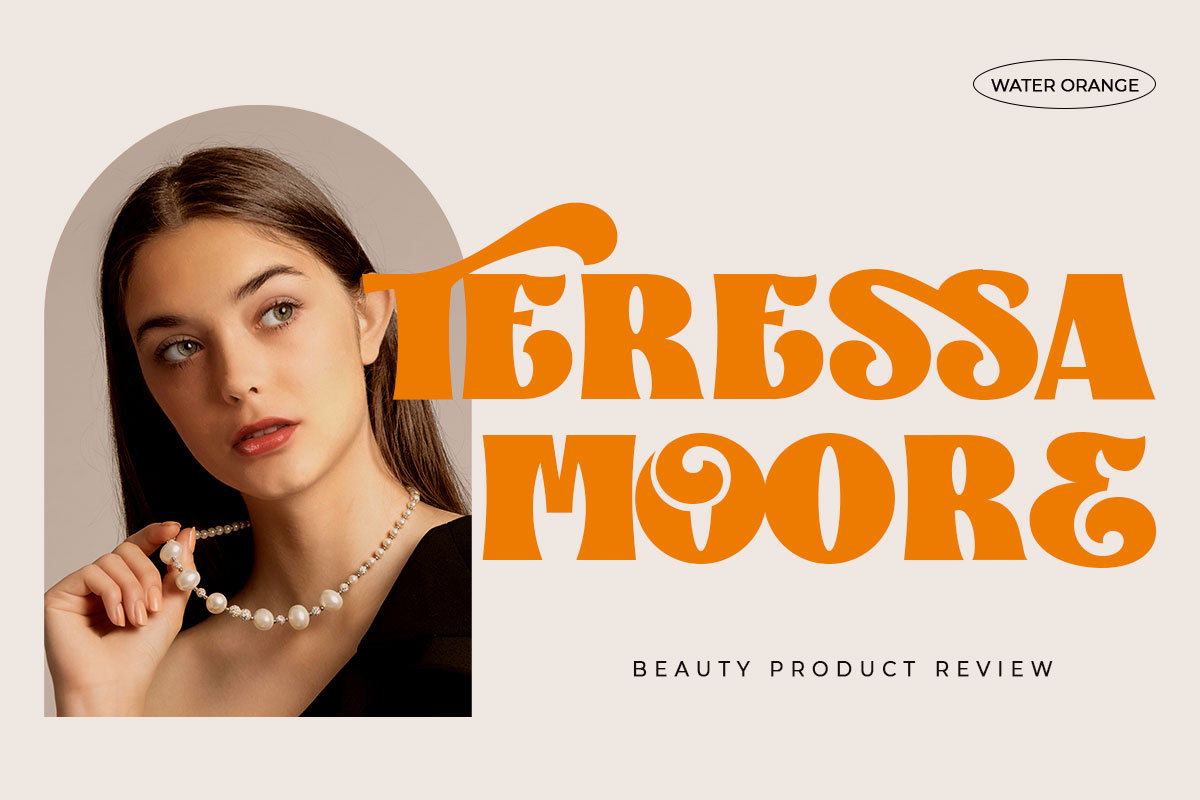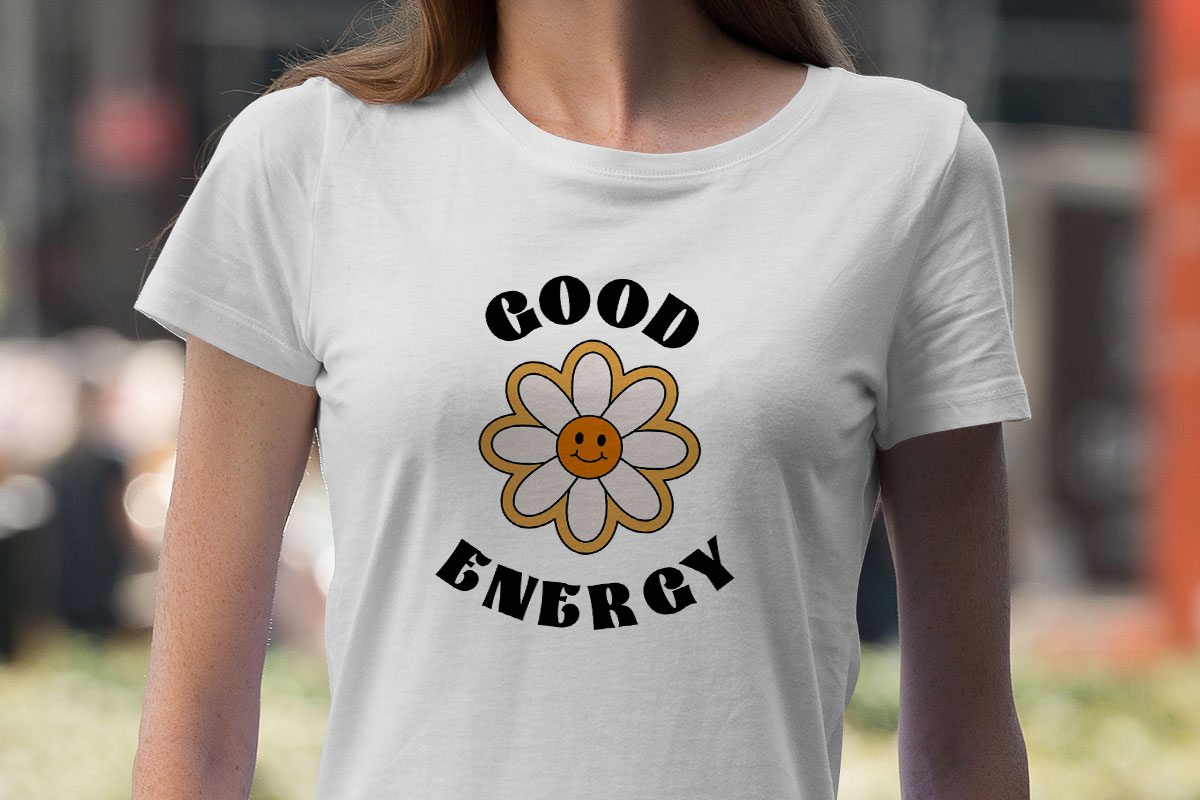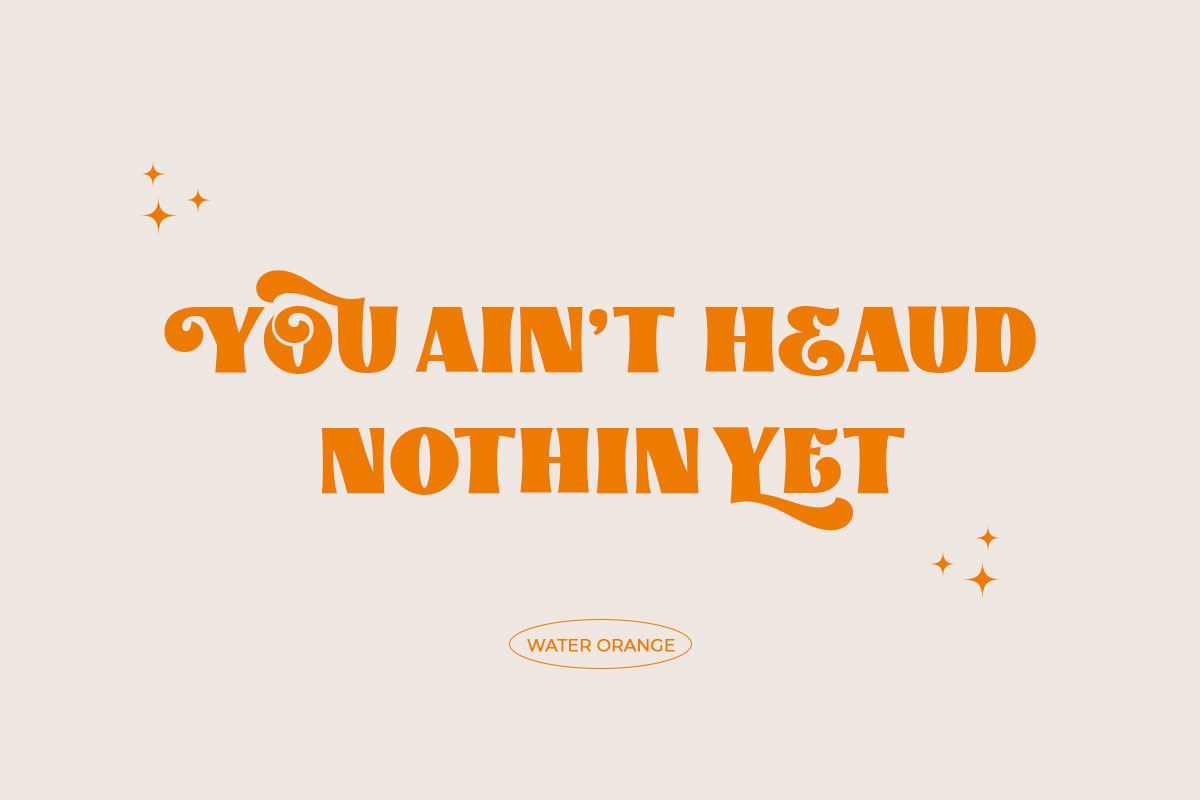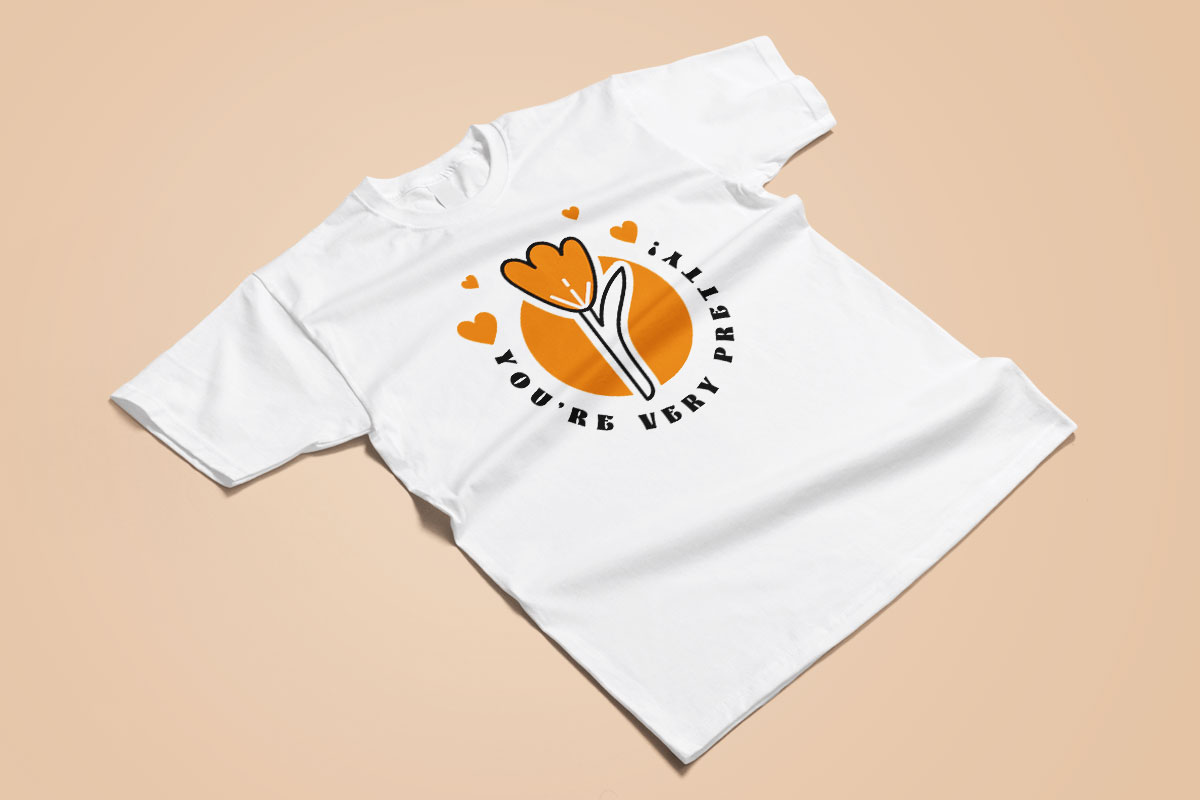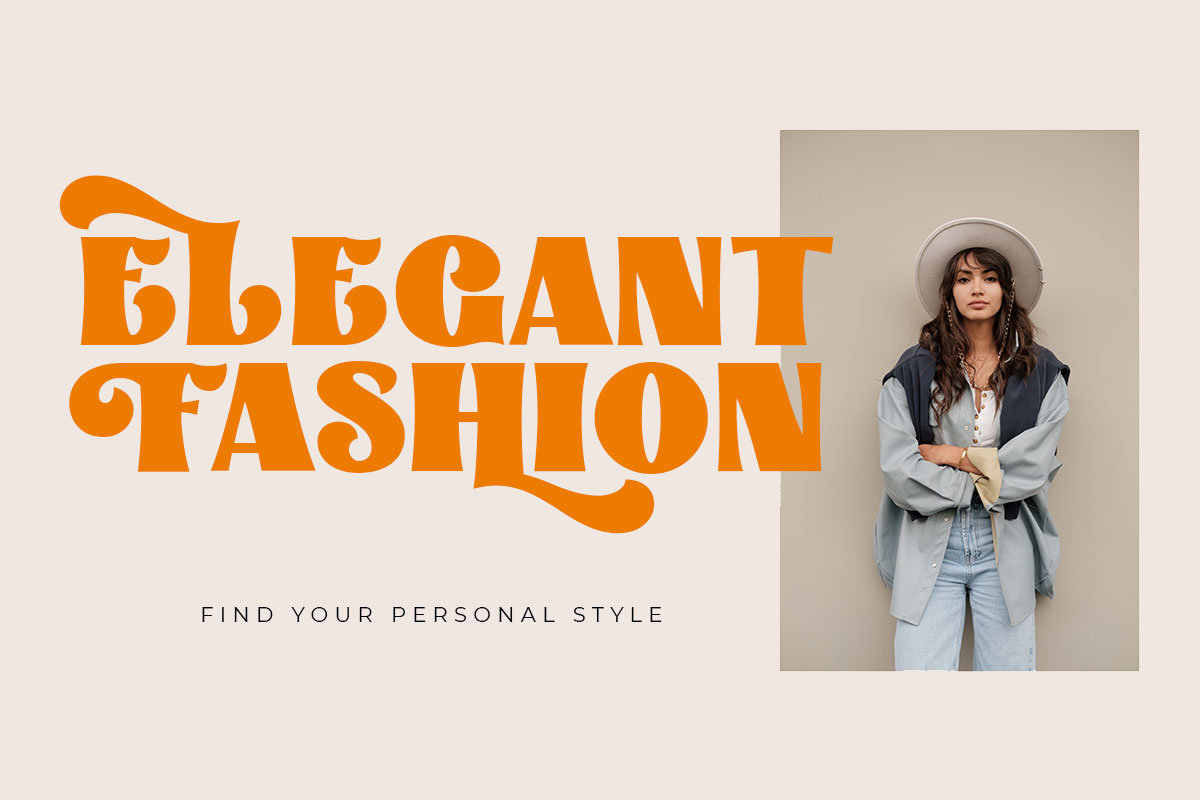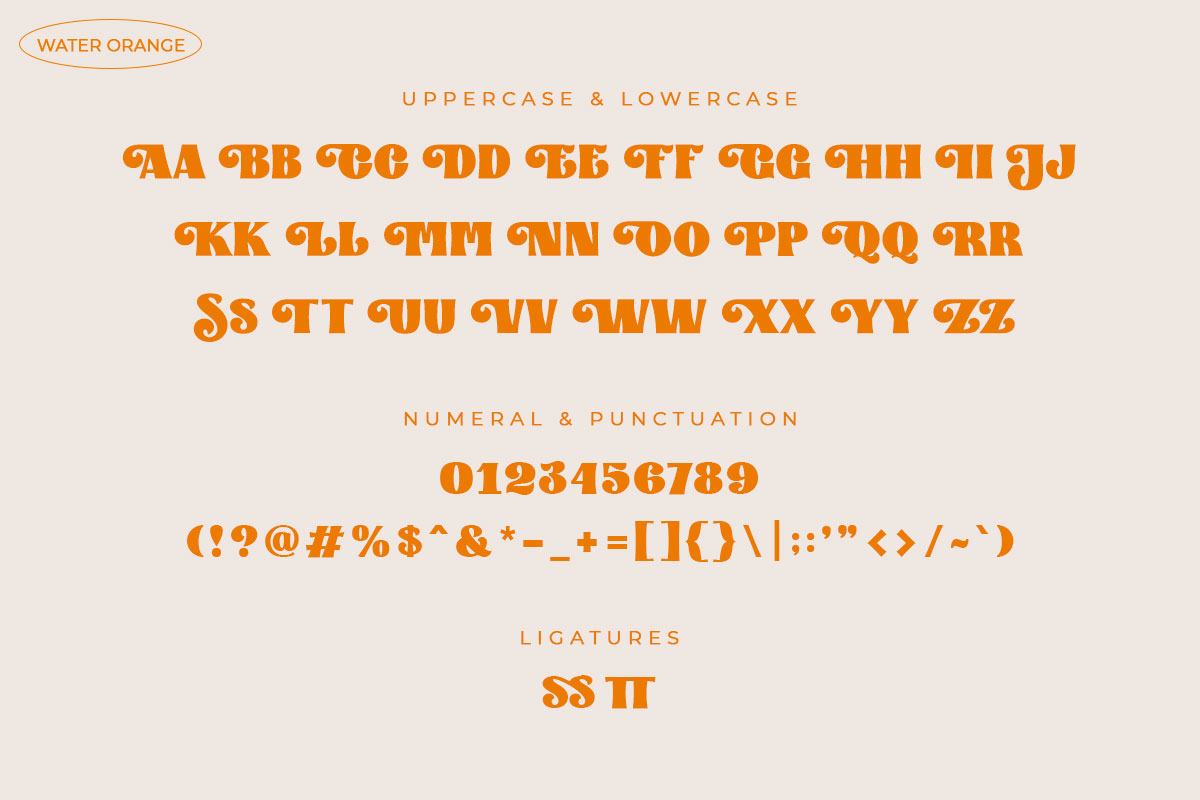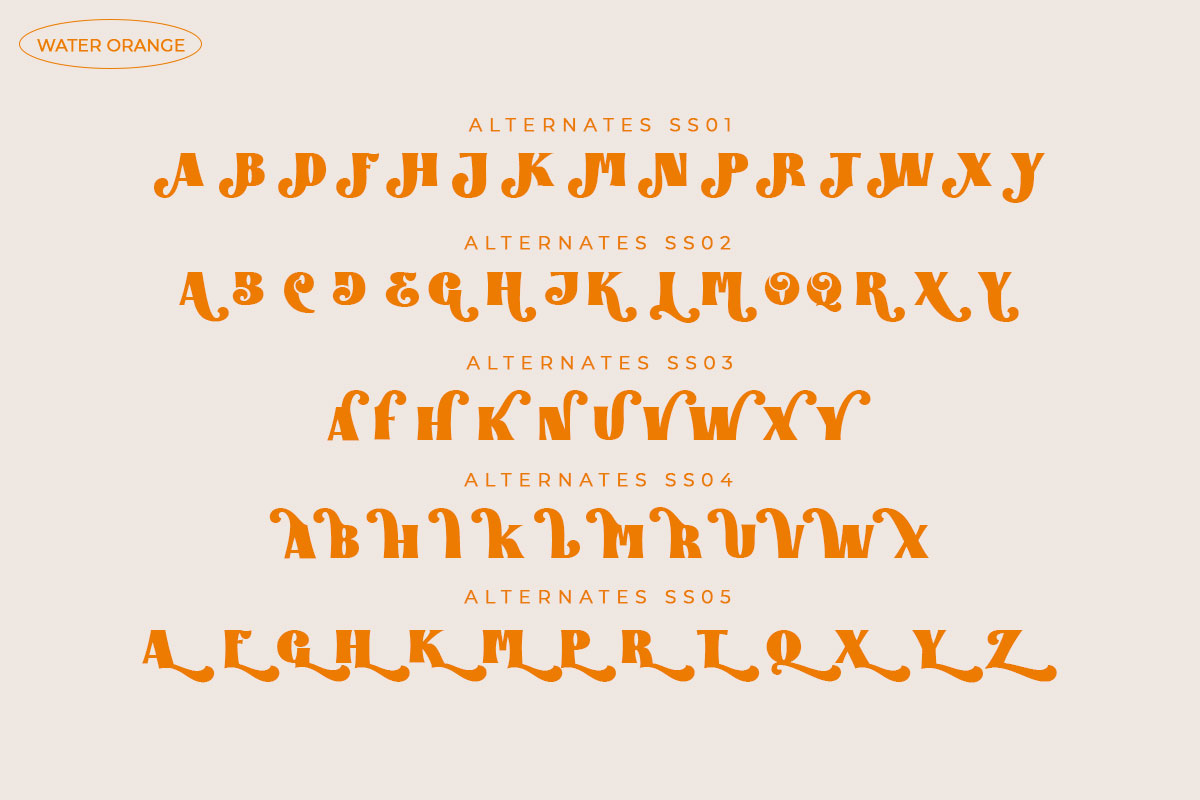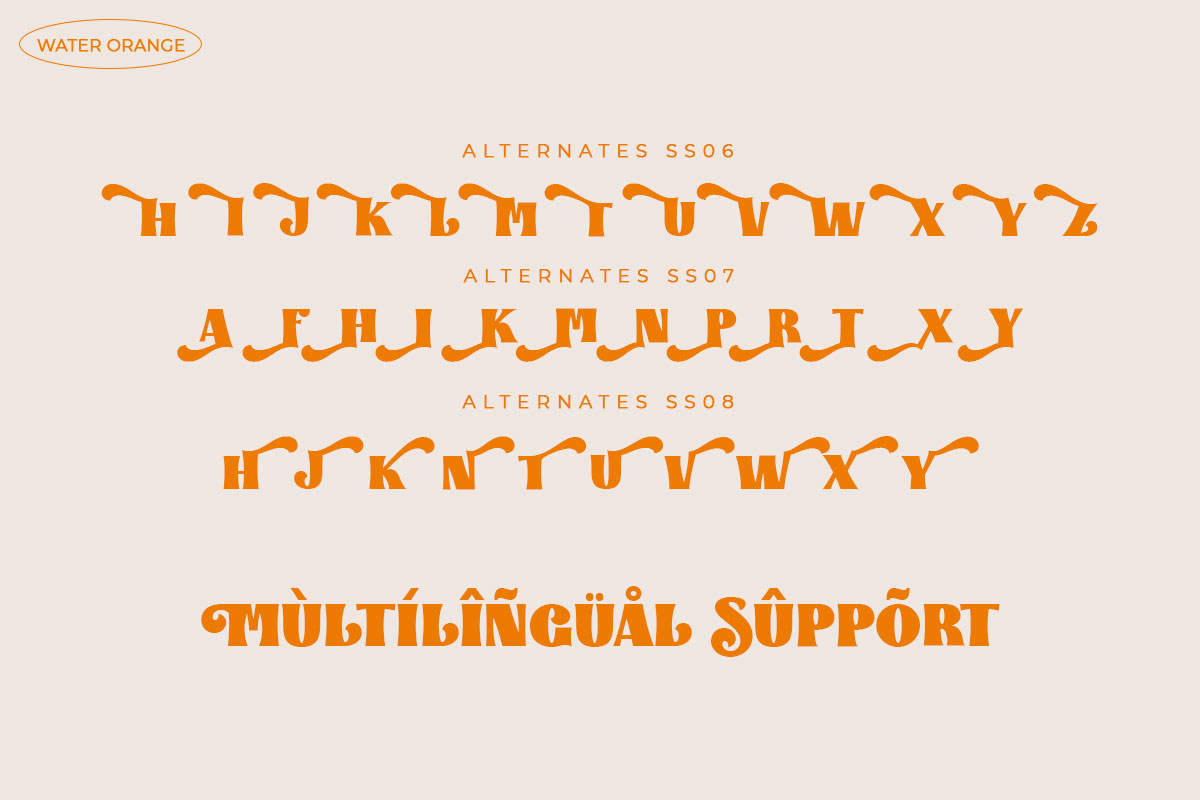
Water Orange All Caps Serif Vintage Font As the name given to this typeface, Water Orange All Caps Serif Vintage Font is a serif font with a fun vibe and modern design. This font is here to help you create beautiful letter designs. Water Orange All Caps Serif Vintage Font is a modern font with a simple, unique, and attractive shape. It is straight and curved thicker at the end of each letter. This font can be dignified easily. Water Orange All Caps Serif Vintage Font is a legible font that can be seen and understood from a distance. However, this font is not good for writing long sentences or blog content. It is better for short sentences. Water Orange All Caps Serif Vintage Font is the best font to use for event needs. This font can use on posters, banners, and tickets. Besides that, this font can use as merchandise such as key chains, stickers, and more. This font can be use as a digital font, such as in product promotion advertisements, music program advertisements, and video intros and outros. Water Orange All Caps Serif Vintage Font is made to give a fun, modern, and simple impression. This impression can change according to the theme and ornaments that follow. It can be lively and colorful when combined with striking ornaments and colors. It still looks great and is very attractive. Our collection of serif fonts is compatible for use as; Figma fonts, Canva fonts, Freepik Fonts, and Adobe Fonts. They also work as Windows Fonts and Apple Fonts. For your social media needs, you can use and install fonts in our collection of serif fonts to use as Instagram Fonts, Facebook Fonts, and Twitter Fonts.